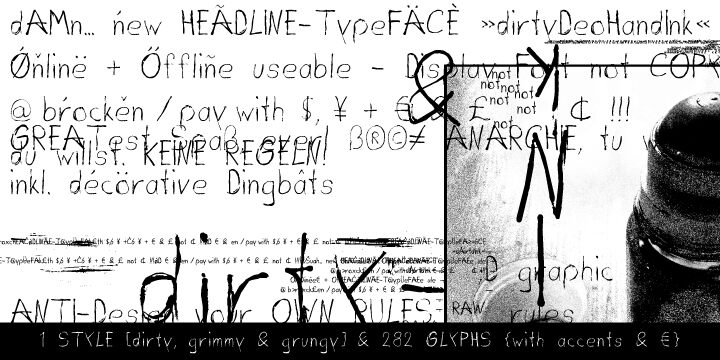
Dirty Deo Hand Ink by Manuel Viergutz is a free trash-style handwritten font whose tall, loosely formed letters jump between thin scratches and sudden ink-heavy strokes. Its uneven baseline keeps the writing visibly restless.
An underground music poster is its most convincing setting, since the nervous silhouettes can pick up the roughness of photocopied photographs, torn paper, and noisy collage. The same damaged, personal voice suits album packaging, horror title cards, streetwear labels, and event flyers, giving independent brands an uneasy scrawled signature in place of a clean corporate mark.
DirtyDeoHandInk includes one style (Regular) and 282 glyphs, including accented characters.